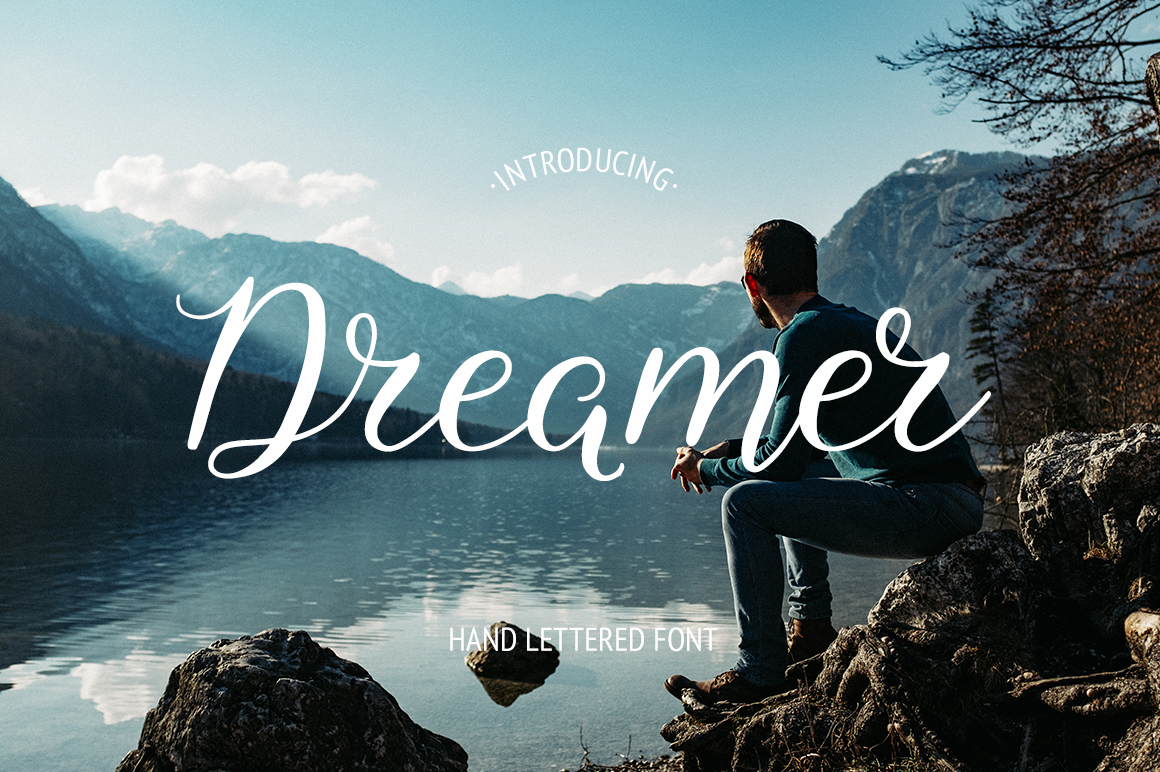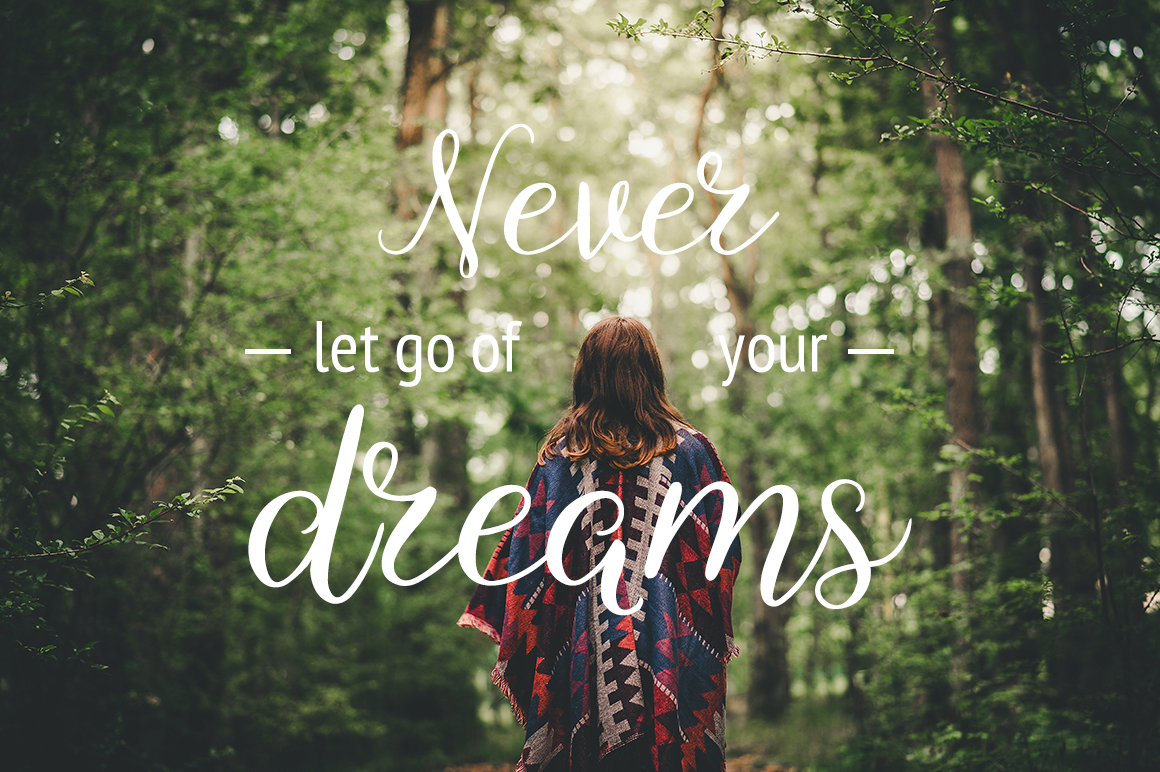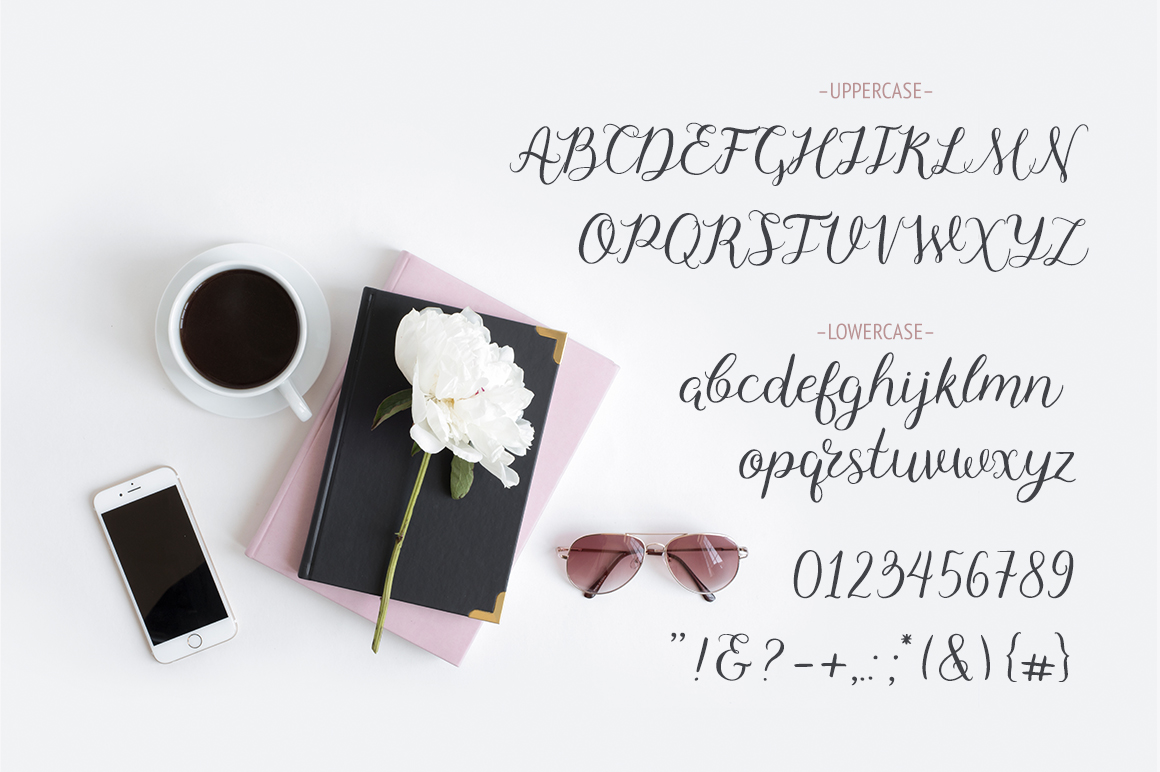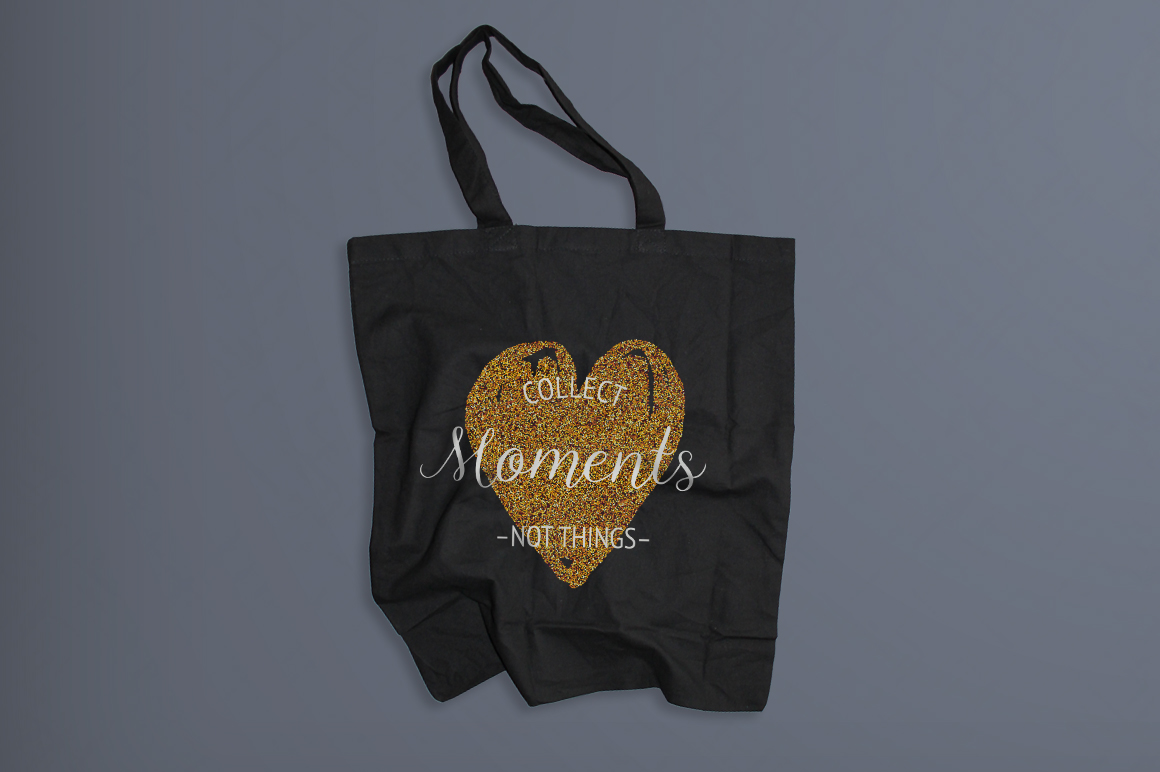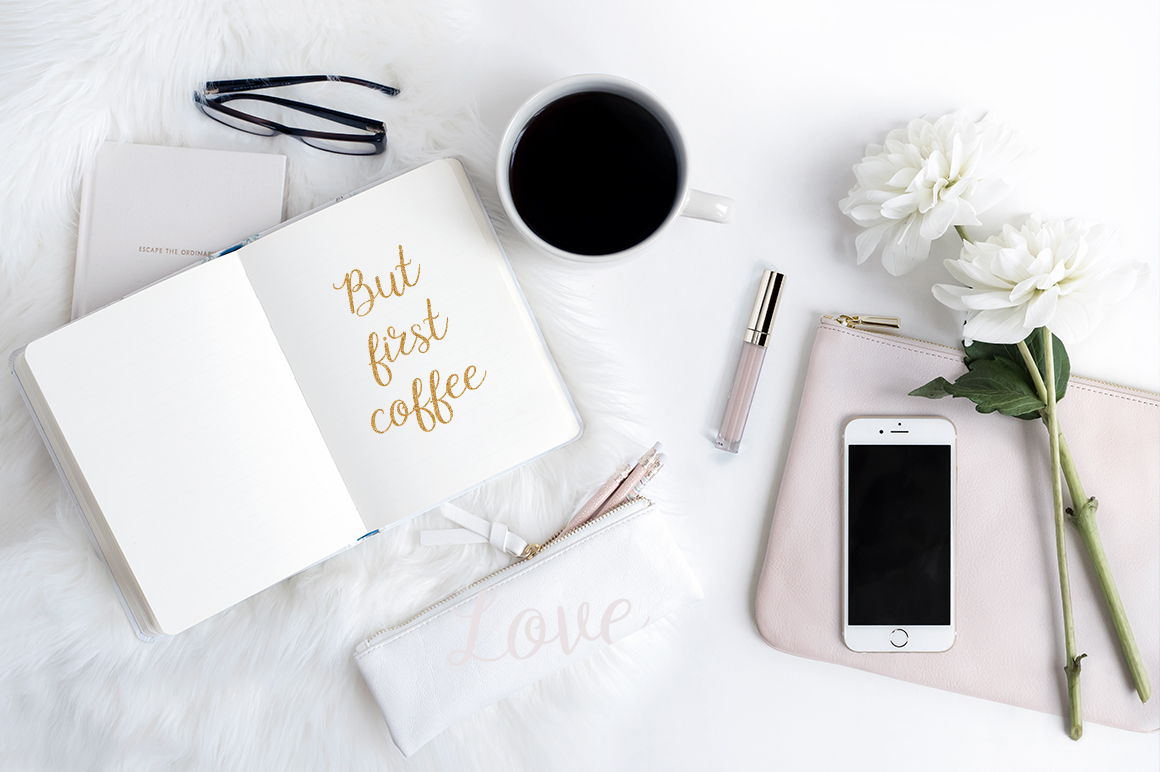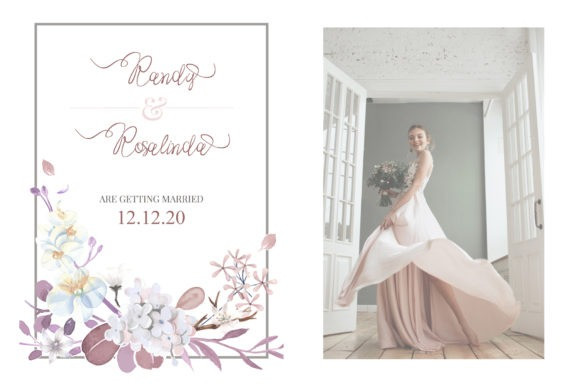
Dreamer Script
Dreamer Script Font
Dreamer is a hand lettered typeface with a cute curls. This font is perfect for using wedding invitation, posters, logos, T-shirts, greeting cards, etc. Dreamer script contains standard characters, lowercase, uppercase, numbers, punctuation and ligatures. You will receive the OTF and TTF files.